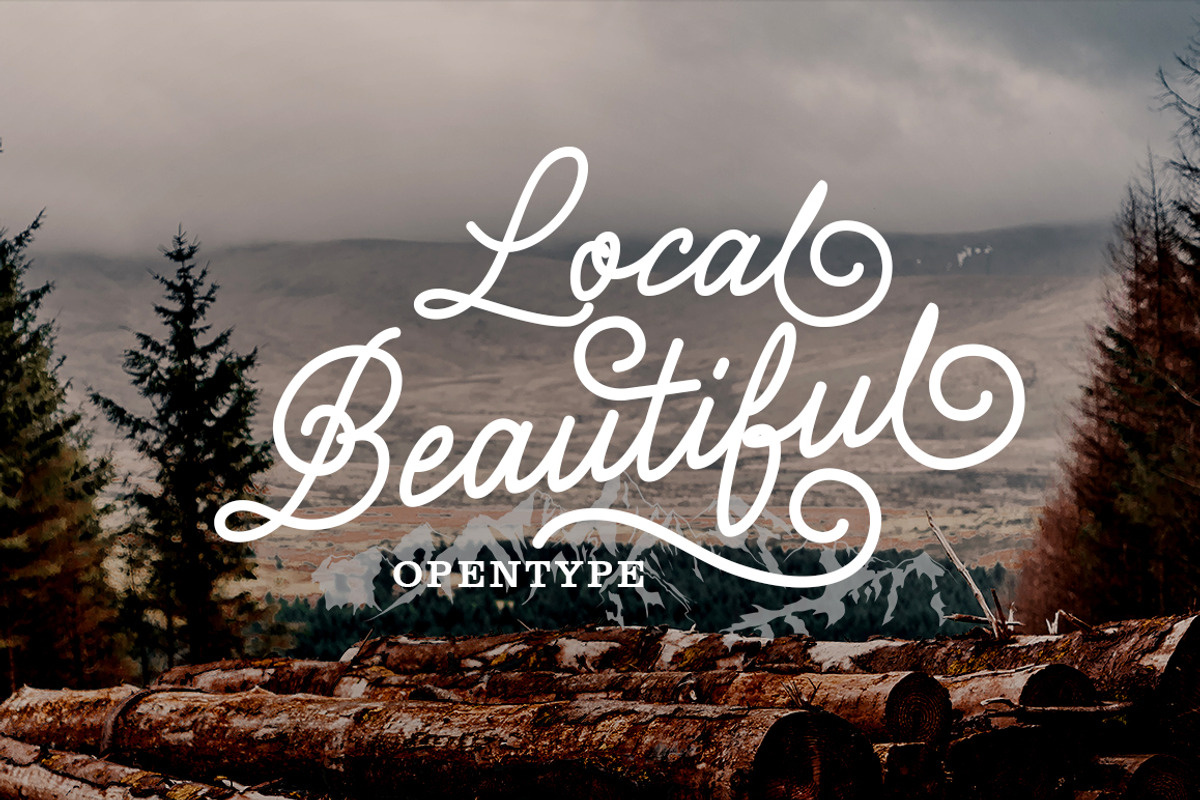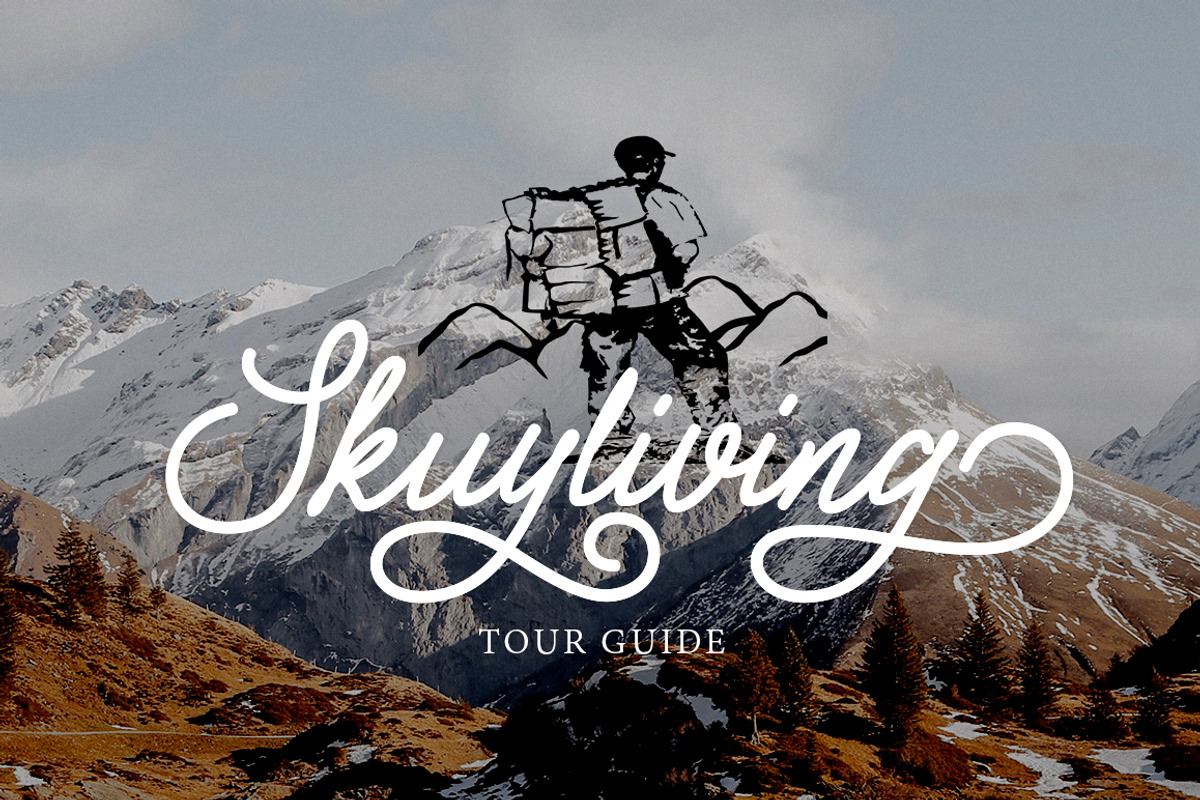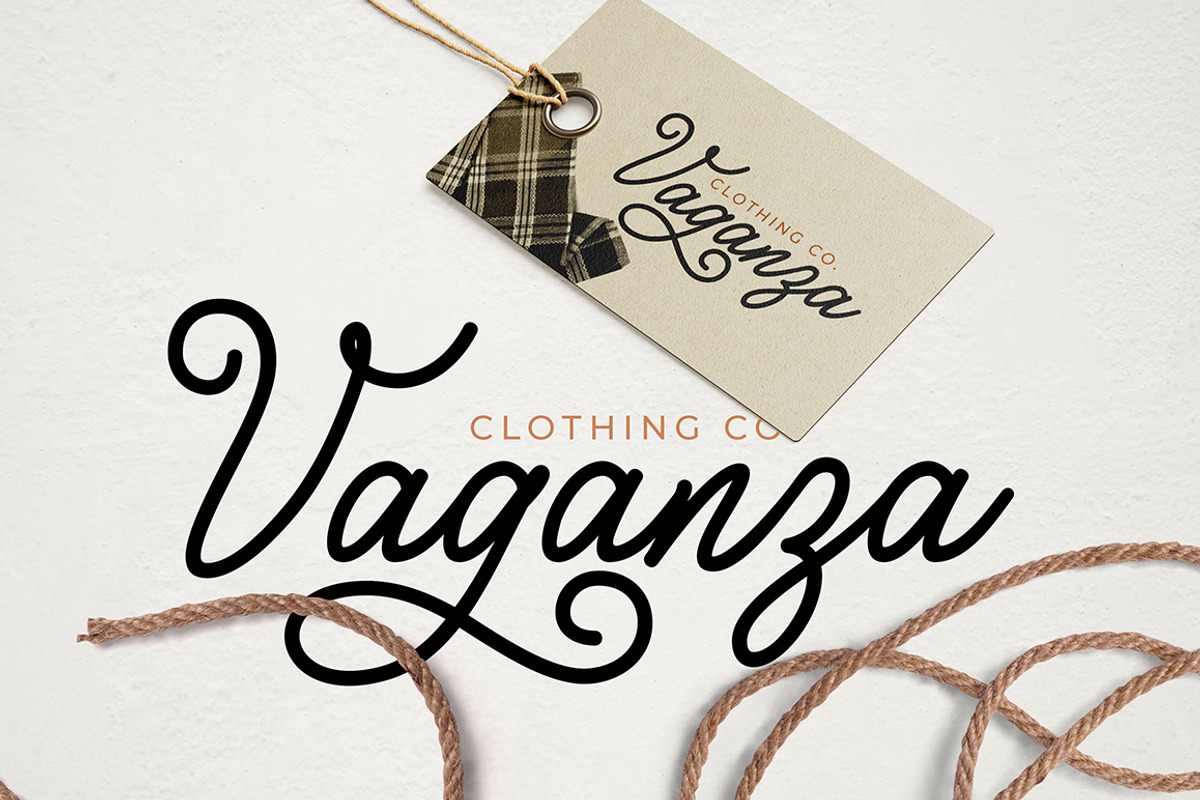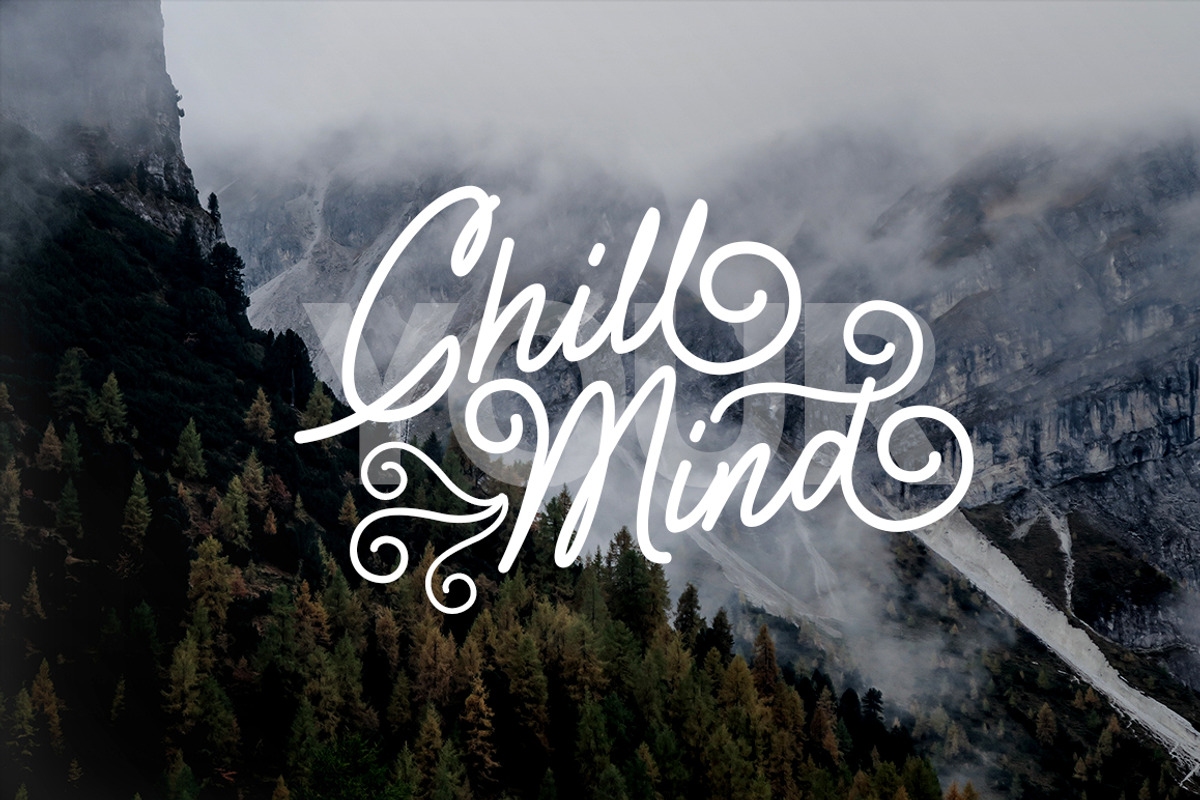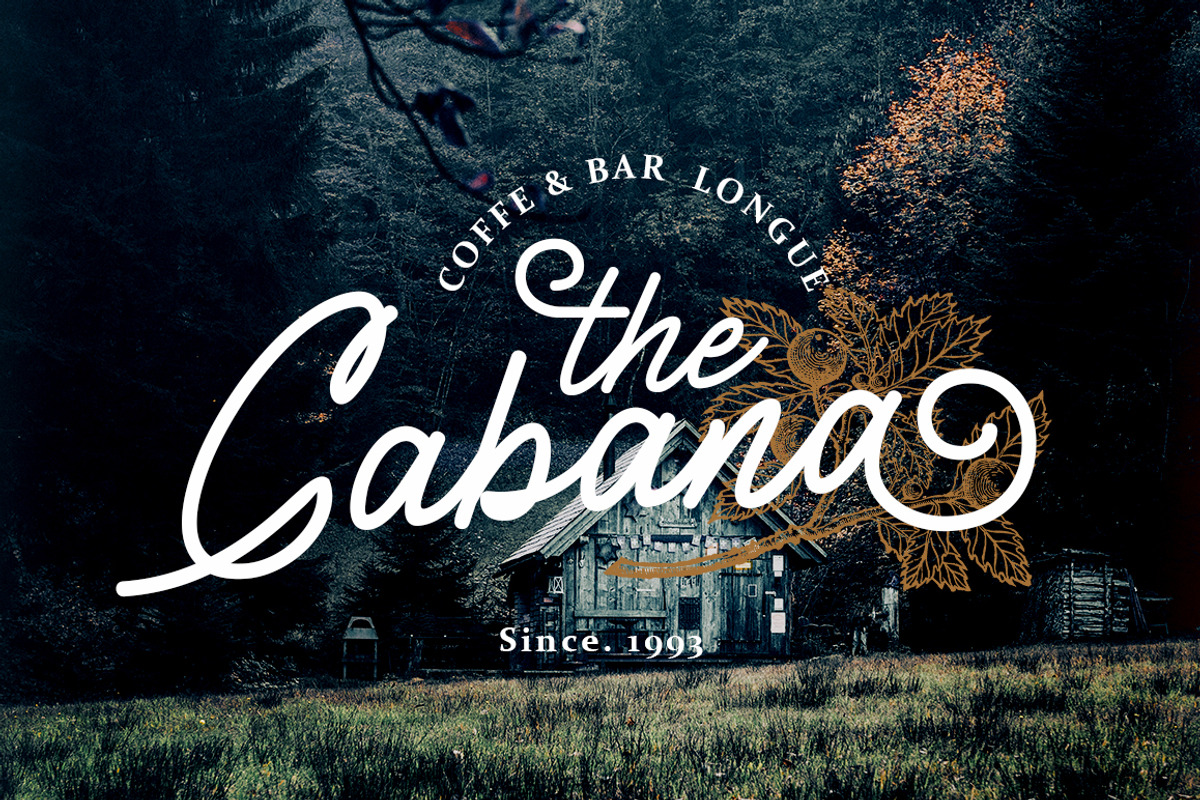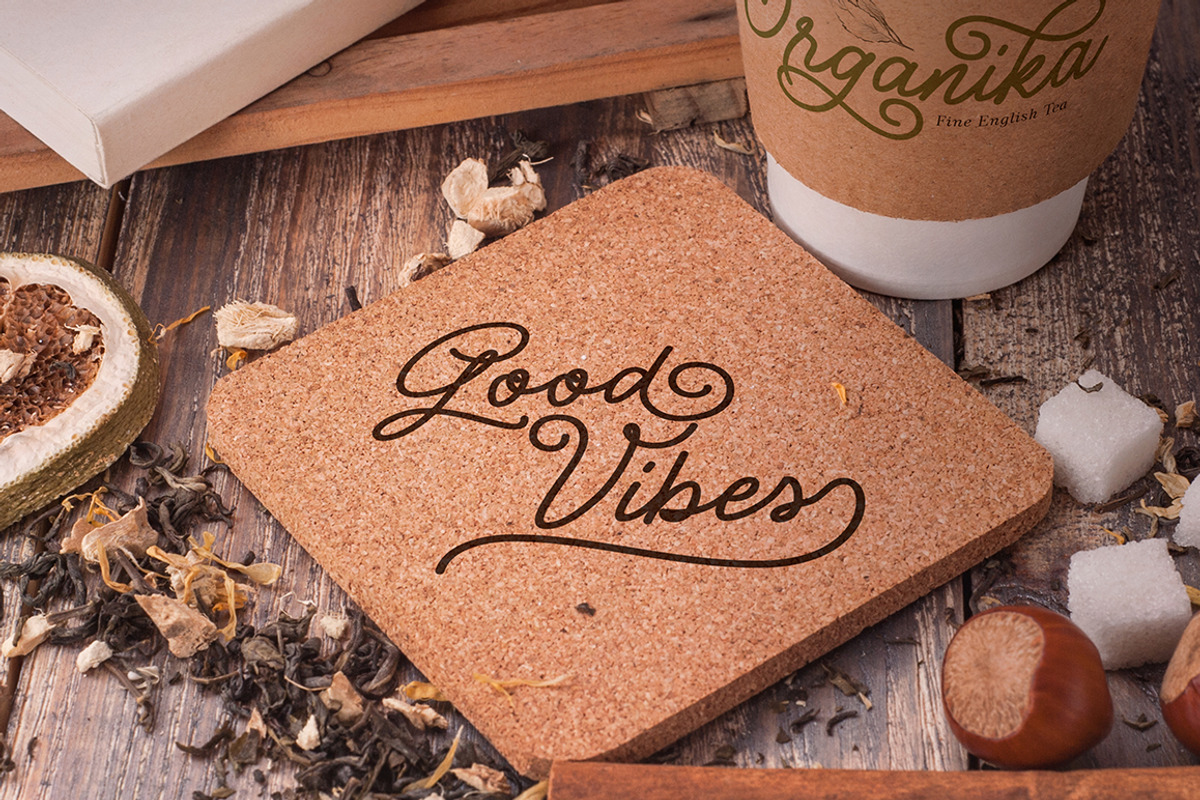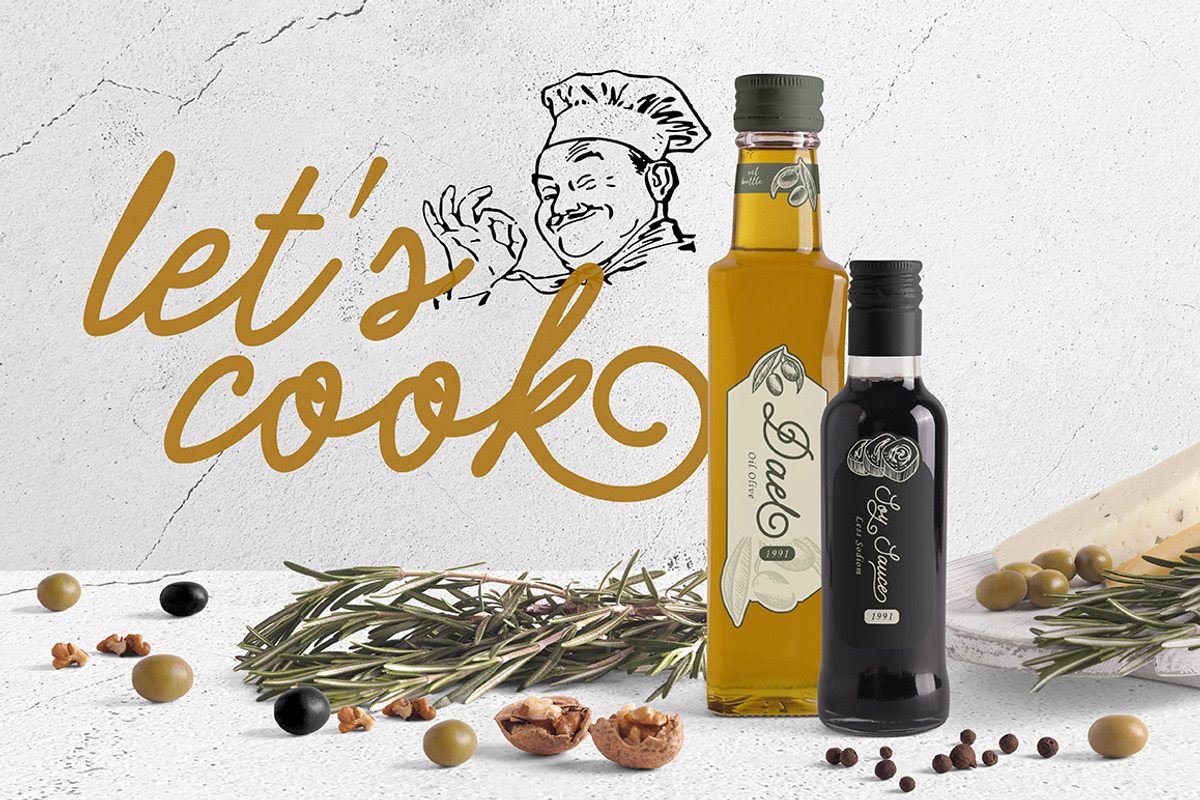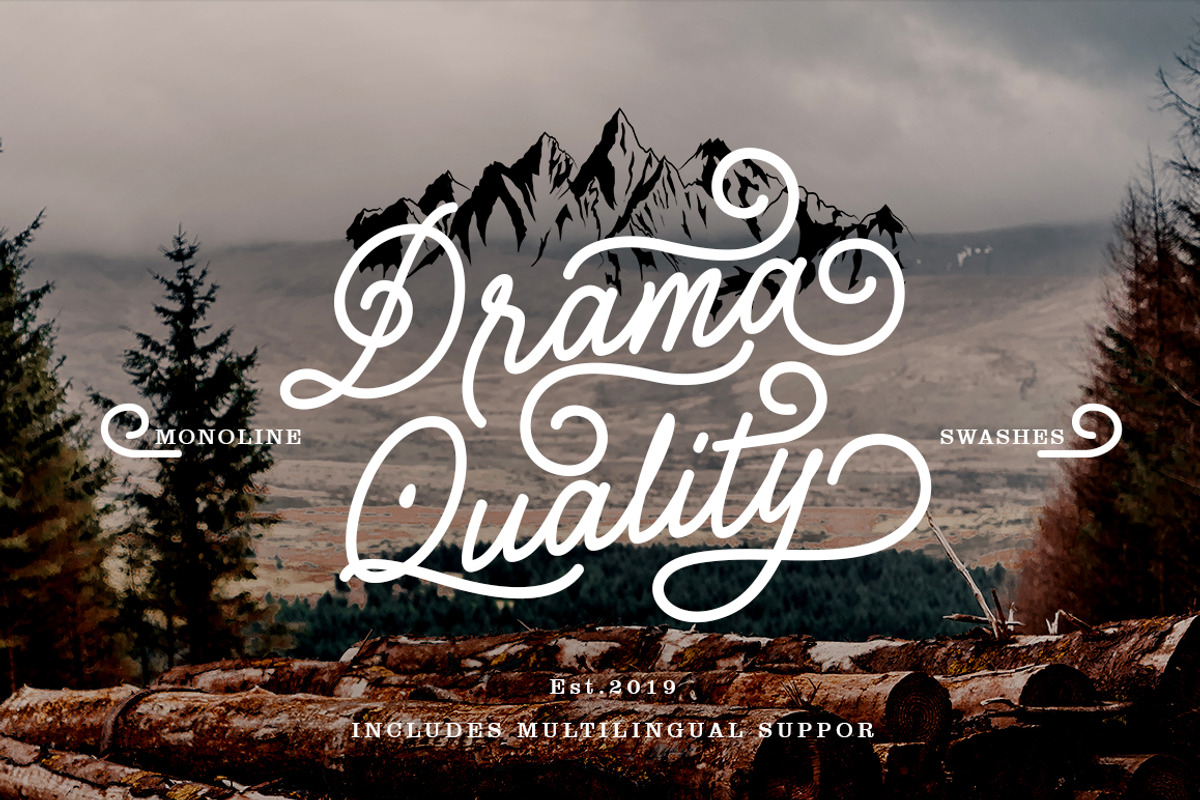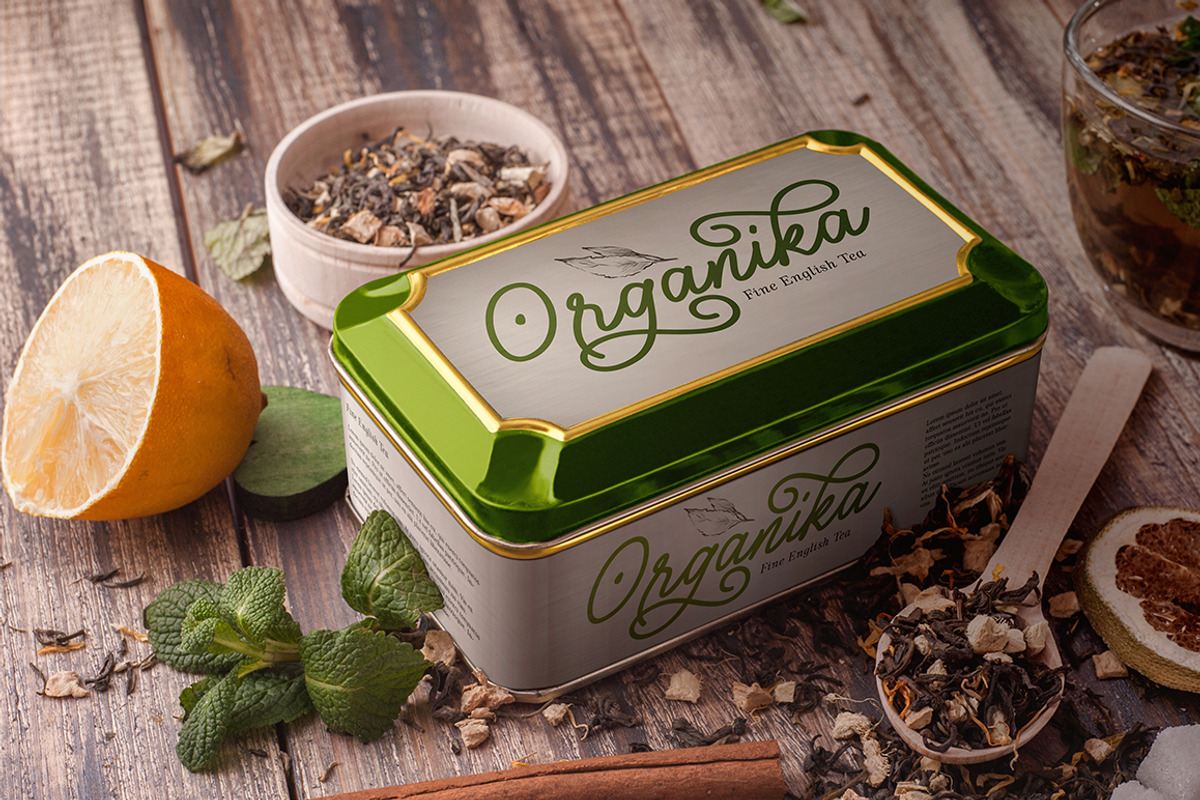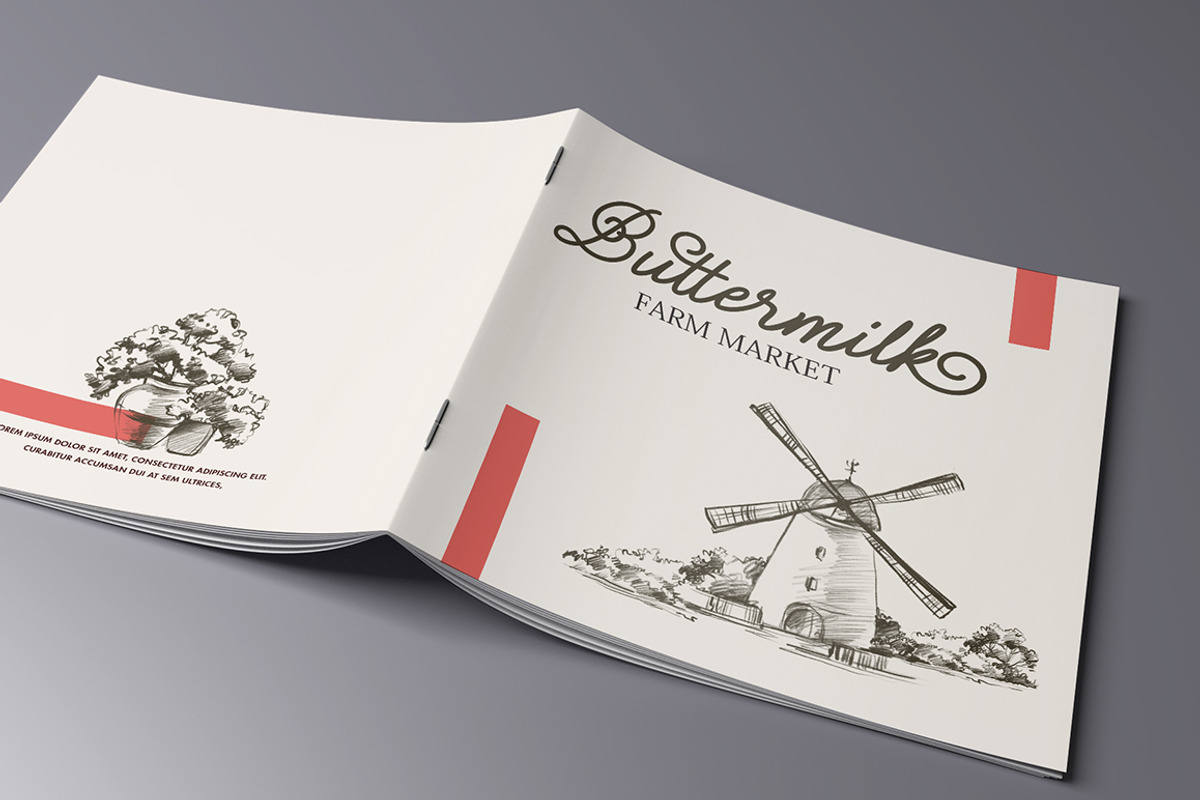
Drama Quality
Introducing Drama Quality, a monoline script typeface with extra features. Drama Quality comes in a handmade style and can perfectly be used as an elegant addition to any logo, invitation, or for product packaging, hand-written quote, greetings card, labels, logos, magazines, books, greeting/wedding cards, packaging, fashion, stationery, novels, labels or any type of advertising purpose.
- Includes multilingual support and special ligatures